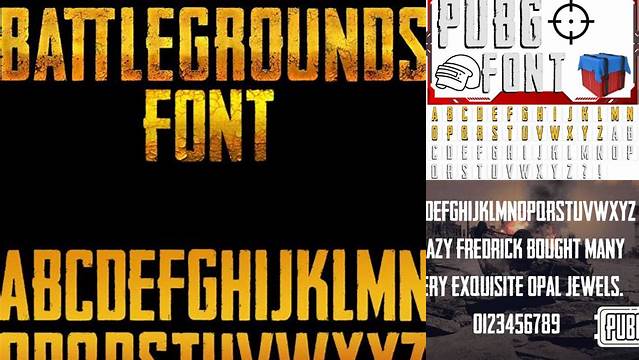
PUBG Fonts: Cool Styles To Stand Out In Battle!
Hey guys! Ever wondered how to make your PUBG username or in-game chat stand out? It's all about the fonts! In this guide, we'll dive deep into the world of PUBG fonts, showing you how to find, use, and even create your own unique styles. Let's get started and make your gaming experience even more awesome.
Why Fonts Matter in PUBG
In the fast-paced world of PlayerUnknown's Battlegrounds (PUBG), personalization is key. Your username is your identity, and your in-game chat is your voice. Using unique fonts can set you apart from the crowd, making you more memorable and adding a touch of flair to your gameplay.
Think about it: a cool, stylish font in your username not only looks awesome but also reflects your personality. It’s like choosing the perfect skin or outfit for your character. Plus, when you're communicating with your squad, a distinct font in the chat can make your messages more noticeable, ensuring your crucial callouts don't get lost in the shuffle. Whether you want a bold, aggressive look or a sleek, modern vibe, the right font can amplify your presence in the game. Ultimately, customizing your fonts is a simple yet effective way to enhance your overall PUBG experience, making every match feel a bit more you.
Finding Cool Fonts for PUBG
Okay, so you're convinced you need a killer font. Where do you find them? The internet is your best friend here. There are tons of websites and apps that offer a wide variety of fonts perfect for PUBG. Some popular options include:
- Gaming Forums and Communities: Keep an eye on PUBG forums and communities. Players often share their favorite font resources and tips on how to use them. This is a great way to discover hidden gems and get advice from fellow gamers.
When searching for fonts, consider what style fits your personality and gaming persona. Do you want something futuristic, medieval, or minimalist? The possibilities are endless! Just remember to choose fonts that are readable and compatible with PUBG's text fields.
How to Use Fonts in PUBG
Keep in mind that PUBG may not support all fonts, so test it out to make sure it displays correctly. If a font doesn't work, try a different one until you find one that does. Also, be aware that some fonts may be harder to read than others, so prioritize clarity when choosing a font for important messages.
Creating Your Own Unique Fonts
Want to take your font game to the next level? Consider creating your own unique fonts! While this requires a bit more effort, the result is a truly personalized look that no one else will have. Here’s how:
- Font Design Software: Use font design software like FontForge, Glyphs, or BirdFont to create your own custom fonts. These tools allow you to design each character from scratch, giving you complete control over the font's appearance.
- Online Font Makers: If you're not ready to invest in software, try online font makers like Calligraphr or FontStruct. These tools allow you to draw characters on paper or in a web interface and then convert them into a usable font file.
- Font Editing: You can also modify existing fonts to create something new. Use a font editor to tweak the shapes, spacing, and other attributes of a font to make it your own.
Creating your own fonts can be a fun and rewarding experience. Experiment with different styles, shapes, and effects to create a font that truly reflects your personality and gaming style. Once you've created your font, you can use it in PUBG by converting it into an image or using a font generator that supports custom fonts.
Font Compatibility and Limitations in PUBG
Before you go wild with custom fonts, it's important to understand the compatibility and limitations within PUBG. Not all fonts will work perfectly, and there are a few things to keep in mind:
How do I make my PUBG name stylish?
Making your PUBG name stylish involves using a combination of special characters, symbols, and unique fonts to create an eye-catching username. Start by using online font generators or mobile apps like Stylish Text or Cool Fonts. These tools provide a variety of font styles that you can copy and paste into PUBG. Experiment with different fonts to find one that suits your personality. Next, add special characters and symbols to your name. You can find these symbols on websites that offer a wide range of decorative elements. Combine the unique font with the special characters to create a distinctive look. For example, you can use symbols like stars, arrows, or geometric shapes to frame your name or add flair. When creating your stylish name, keep in mind that PUBG has character limits, so make sure your name fits within the allowed length. Also, ensure that your name is readable and doesn't contain offensive or inappropriate content. With a bit of creativity, you can create a PUBG name that stands out.